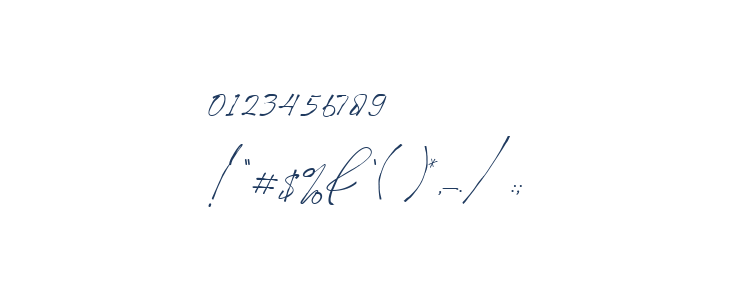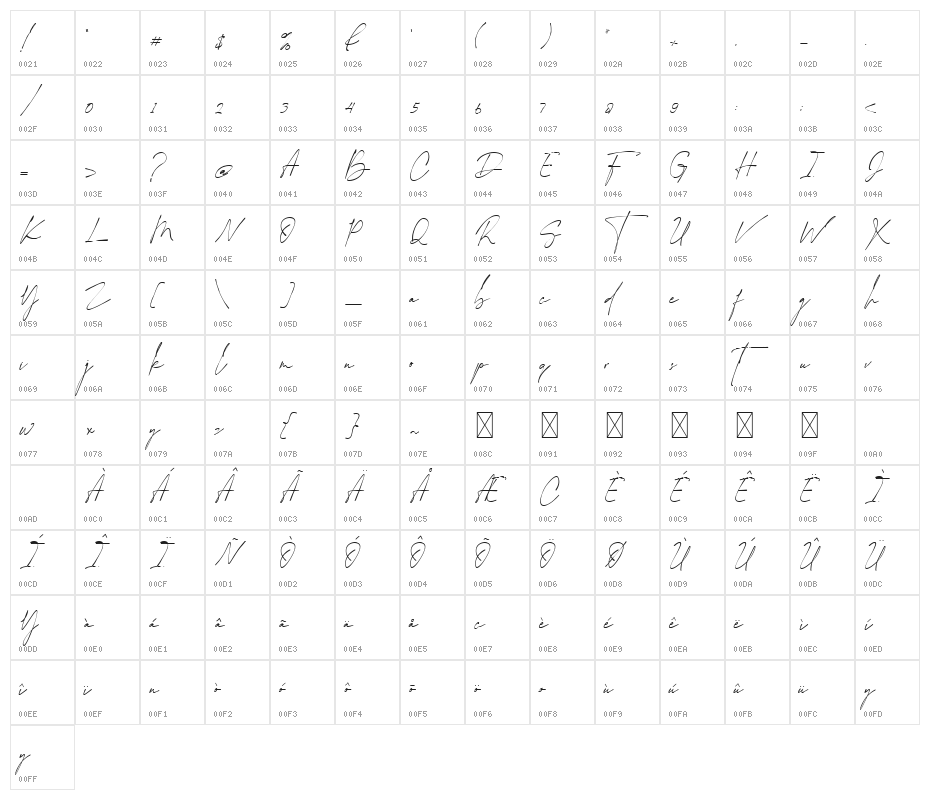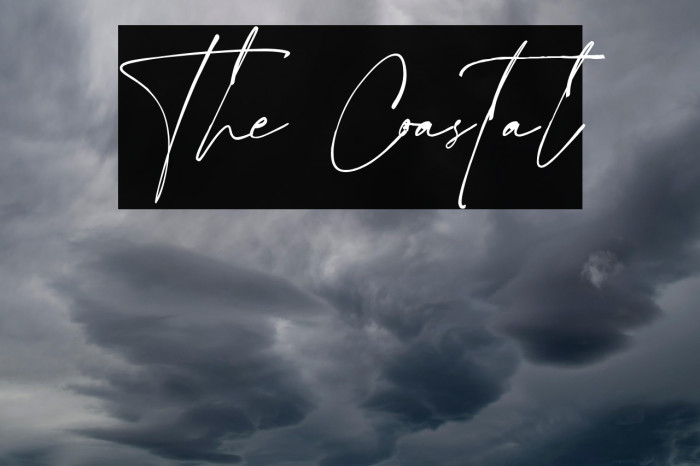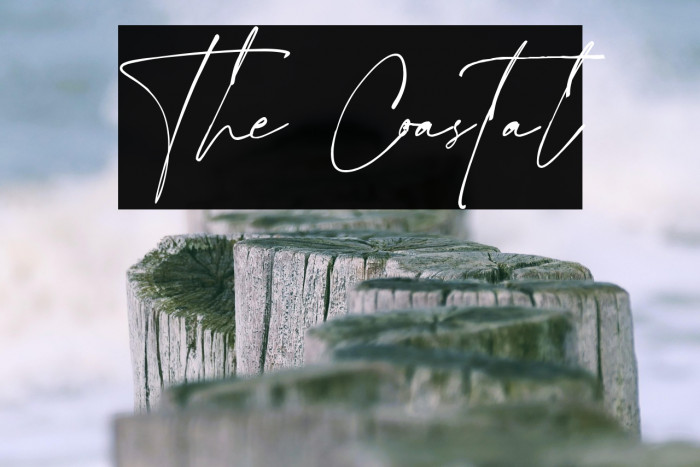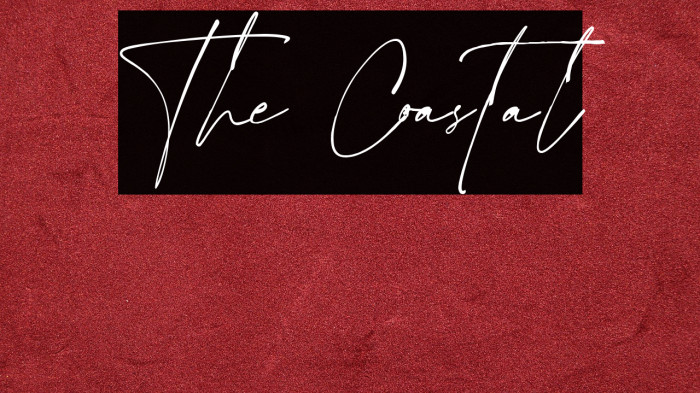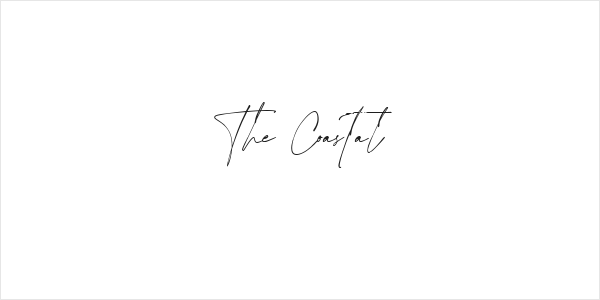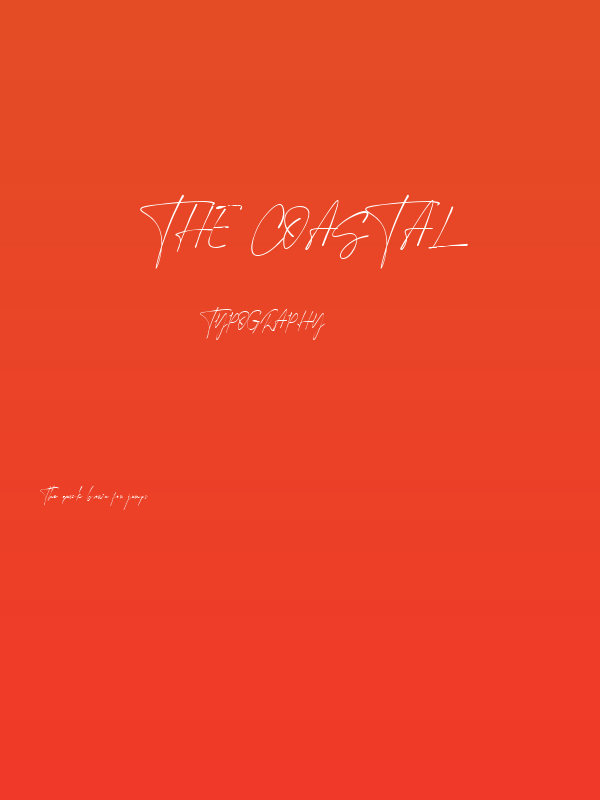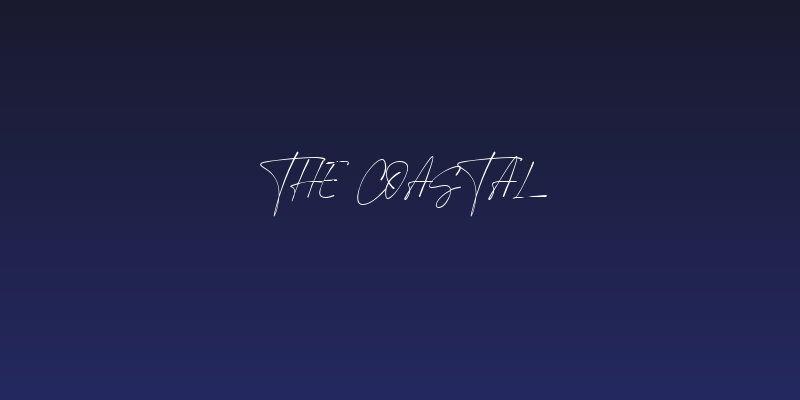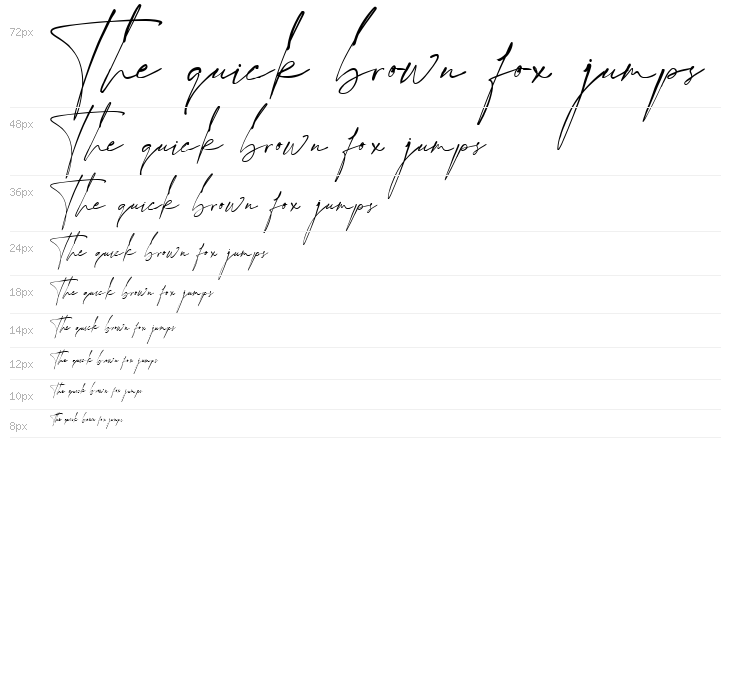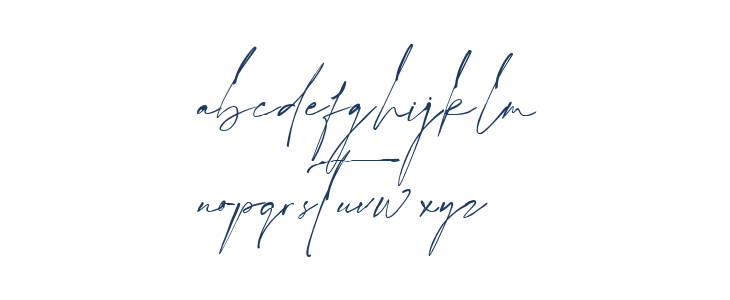
The Coastal Font
The Coastal Description
This font exudes a casual, handwritten style with a touch of elegance. The letters are fluid and connected, giving it a natural and organic feel. The uppercase letters are tall and slightly slanted, while the lowercase letters maintain a consistent flow with varying heights. The numerals are distinct and maintain the same handwritten aesthetic. Special characters are seamlessly integrated, maintaining the overall style. The strokes are thin, with a medium contrast that adds to the font's legibility and charm. This font is perfect for projects that require a personal touch, such as invitations, greeting cards, or branding materials.
Overall StyleCasual, Elegant
Use CaseLogos, Invitations, Greeting Cards
Proposed ProjectsIdeal for invitations, greeting cards, branding, and personal projects.